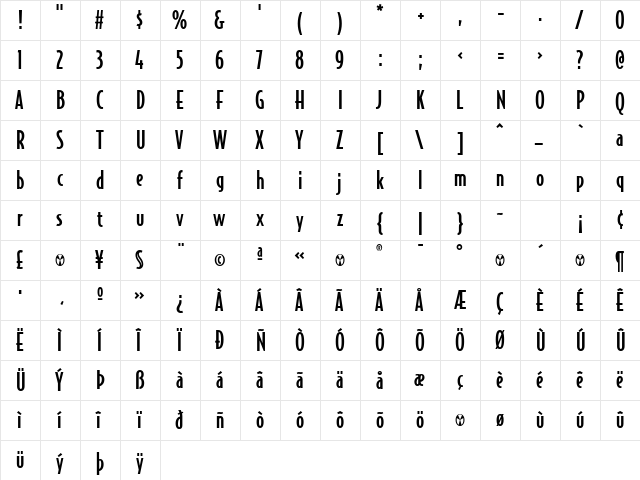
BodegaSansMedium Regular Font Preview
BodegaSansMedium Regular
BodegaSansMedium Regular Font Details
Design Context for BodegaSansMedium Typeface
BodegaSansMedium takes a measured approach to typography — its balanced proportions and neutral character make it a reliable workhorse for both digital and print work.